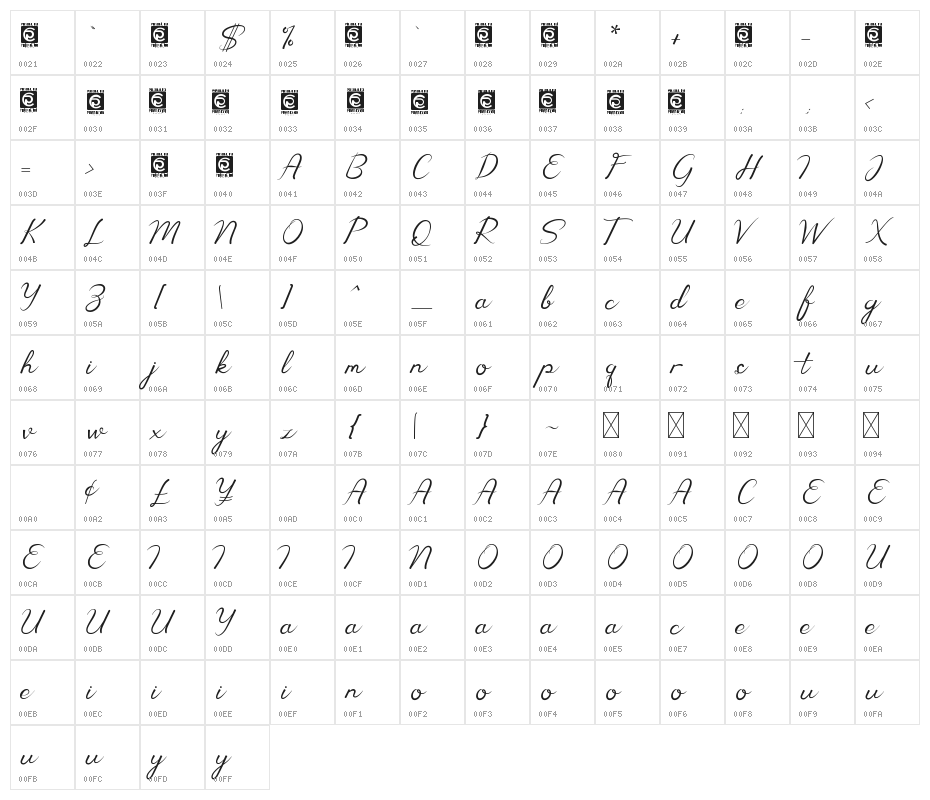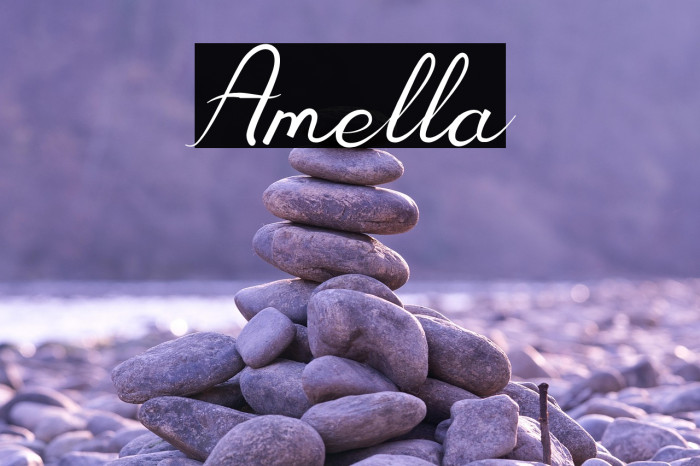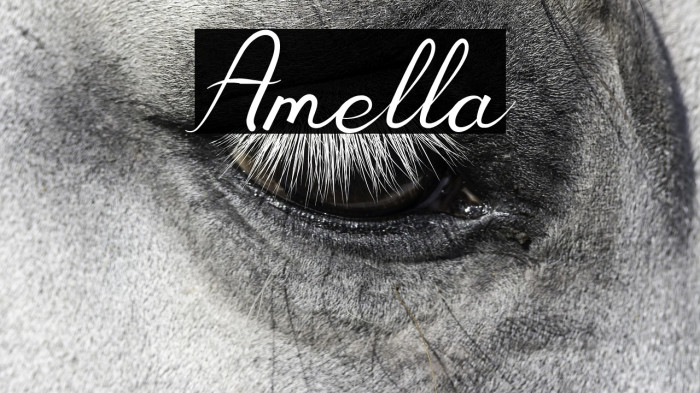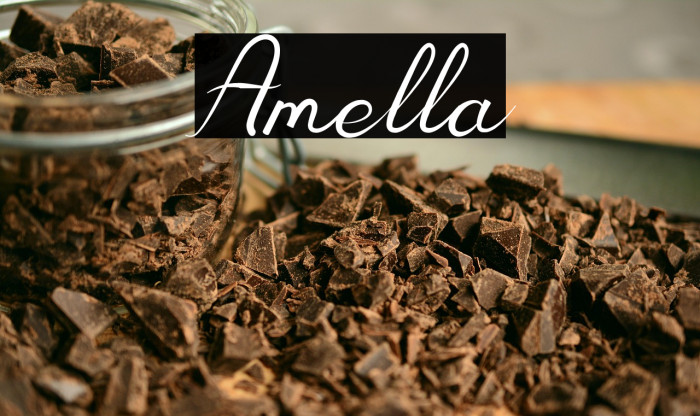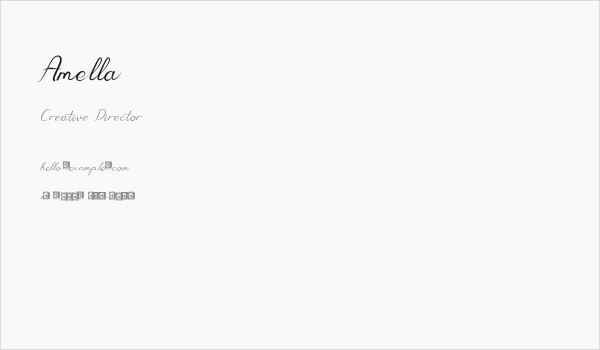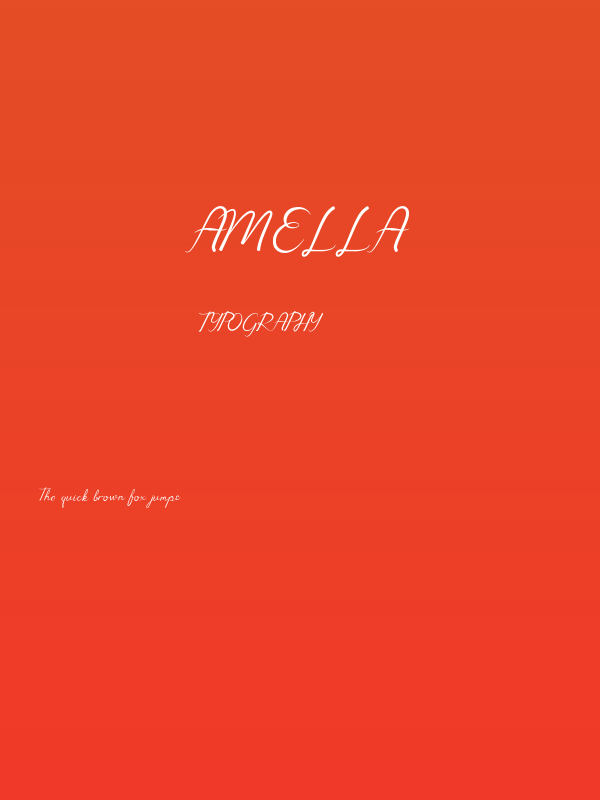
Amella Font
Amella Description
This elegant script font features flowing, cursive letterforms with a sophisticated and graceful appearance. The uppercase letters are slightly larger and more ornate, while the lowercase letters maintain a consistent, smooth flow. The font exhibits a classic calligraphic style, with delicate curves and loops that add a touch of refinement. The characters are well-spaced, providing a balanced and readable text. The special characters are designed to complement the overall aesthetic, making it suitable for formal and decorative uses.